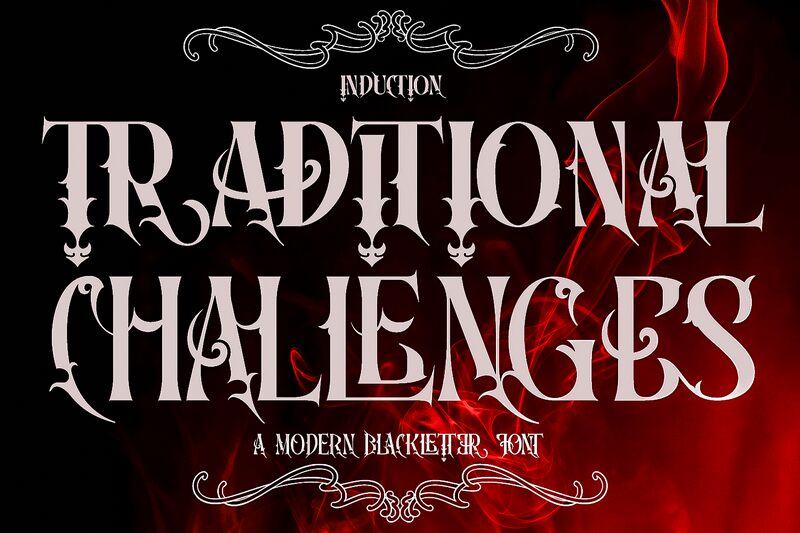
Traditional Challenges font family is a meticulous creation from 177Studio, presenting a free font family designed to bring a touch of the Gothic era to your projects. With a Baroque-inspired aesthetic, this font exudes elegance and drama, wrapped in ornate details and decorative flourishes. Its allure lies in the intricate and elaborate designs that draw influence from historical craftsmanship, making it a tool with an immense power of presence.
The dramatic, elegant characters of this typeface are perfect for vintage-themed projects, logos, book covers, packaging, apparel design, posters, greeting cards, tattoos, branding, stationery, social media posts, and more.